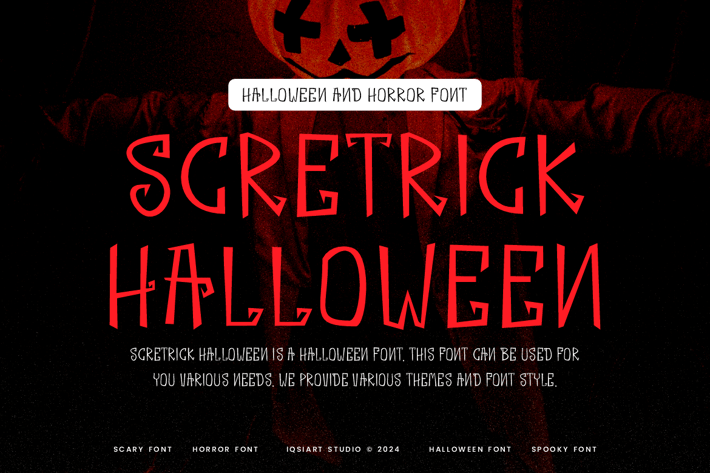
Scretrick Halloween - Horror Font
Scretrick Halloween Font is a horror and authentic display font.
This font can be used for your various needs.
We provide various themes and font styles.